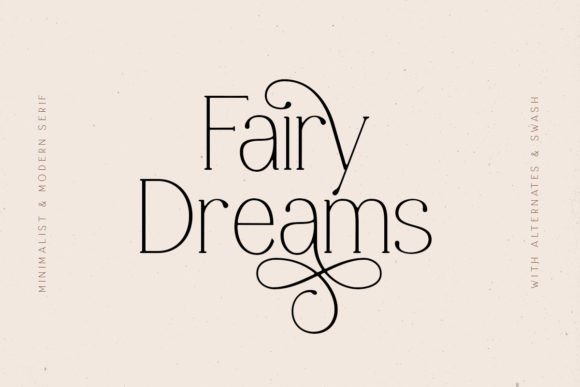
Introducing Fairy Dreams, the ultimate serif font that is perfect for any design project. Created by baletype, this font is a perfect match for those who are looking for minimalist and modern styles. Fairy Dreams comes with alternates and swashes, making it a versatile font that can be used in various design projects.
Whether you are designing branding materials, wedding invitations, or logos, Fairy Dreams is the best choice for your project. Its simple and elegant looks make it stand out from the rest, and its unique alternates and swashes give it an added touch of sophistication.
One of the key features of Fairy Dreams is its ability to bring a touch of magic to any design project. Its name alone evokes images of enchantment and wonder, making it the perfect font for anything related to fantasy or fairy tales. But don't let that limit you! This font is perfect for any project that requires a touch of elegance and charm.
In addition to its beauty, Fairy Dreams is also a powerful tool for marketers. It is one of the best fonts for magazine ads, making it a top choice for anyone who wants to elevate their brand and stand out from the crowd. With its emotional appeal and eye-catching design, Fairy Dreams is sure to capture the attention of your audience and leave a lasting impression.